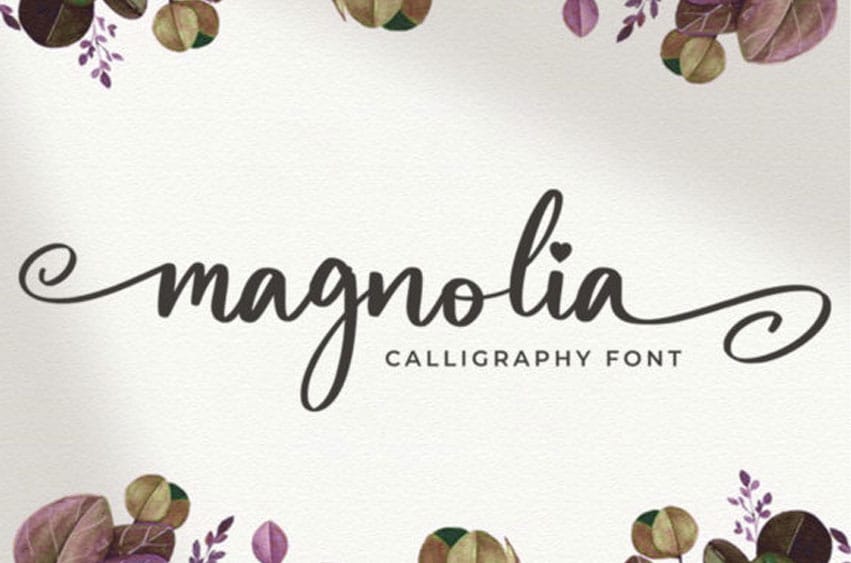
Magnolia Calligraphy Font is a cute, casual handwritten font with an incredibly friendly feel. It features gorgeous swashes and ligatures that make this script incredibly versatile.
This versatility will appeal to a wide range of crafty ideas, from letterheads and titles to stationery.